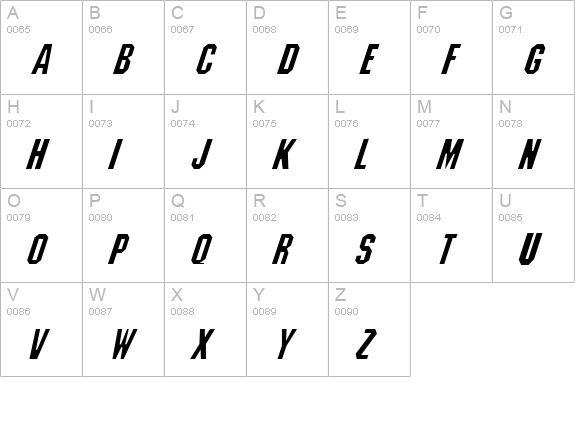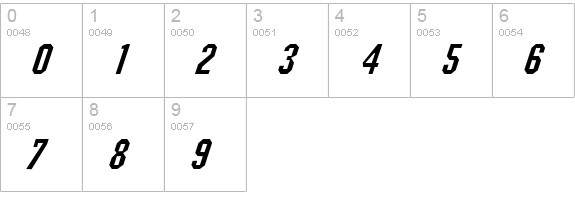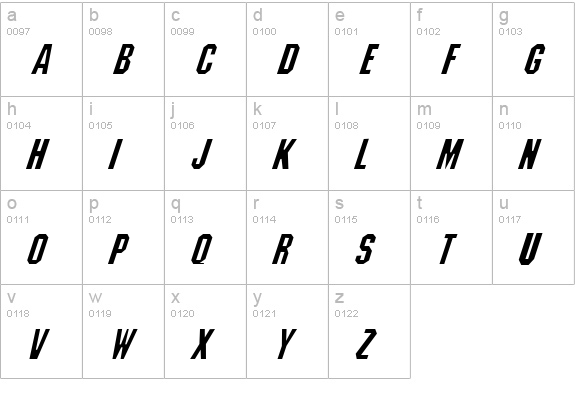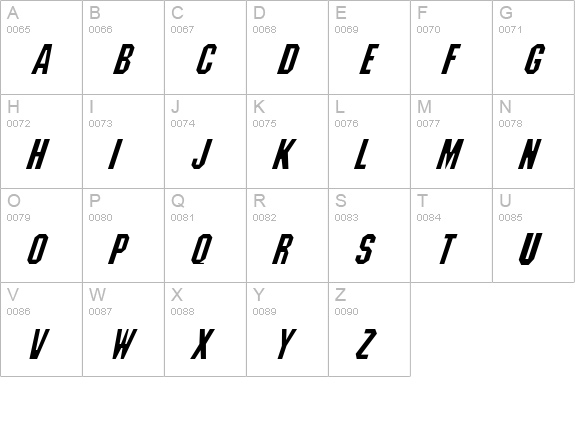
Machiavelli Italic Font Details
Machiavelli Italic is a distinctive, italic variant in the Machiavelli typeface family \xE2\x80\x94 well suited to design and typography projects.
Introducing the captivating Machiavelli Italic font, a true masterpiece that combines elegance, sophistication, and a touch of rebelliousness. Designed with meticulous attention to detail, this font embodies the essence of power and authority, echoing the influential philosophies of the great thinker Niccolò Machiavelli. With its sleek and slanted letterforms, Machiavelli Italic exudes a sense of daring and audacity, making it the perfect choice for projects that require a touch of boldness and unconventional thinking. Whether you are designing a logo for a cutting-edge brand, creating eye-catching headlines, or crafting striking editorial layouts, this font will effortlessly command attention and leave a lasting impression. But what truly sets Machiavelli Italic apart is its sense of freedom. This font allows your creativity to soar as it embraces the concept of liberation, encouraging you to break free from conventional design norms and explore new possibilities. Its unique combination of graceful curves and sharp angles creates a harmonious balance that will captivate and inspire your audience. And the best part? Machiavelli Italic is freely available to download at FontsMarket.com. With just a few clicks, you can unlock a world of design possibilities and add a touch of rebellious elegance to your projects. So why wait? Embrace the power of Machiavelli Italic and set your creativity free.